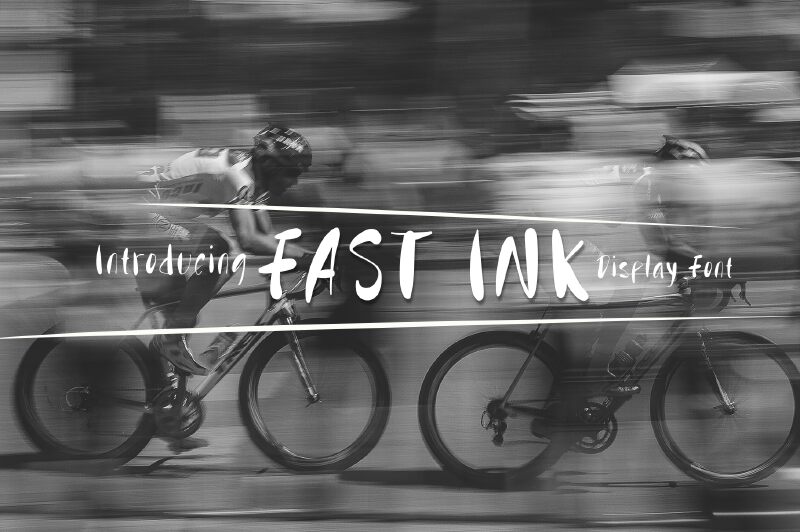
Fast Ink - Demo
Fast Ink font by Tera Asset Garage captures the raw, dynamic essence of handwritten style. This free font offers a bold, energetic flair with its flowing letters and organic curves, making it perfect for projects seeking a personal touch. Whether you're designing eye-catching logos, vibrant posters, or unique branding materials, Fast Ink adds an authentic vibe that's both modern and timeless.